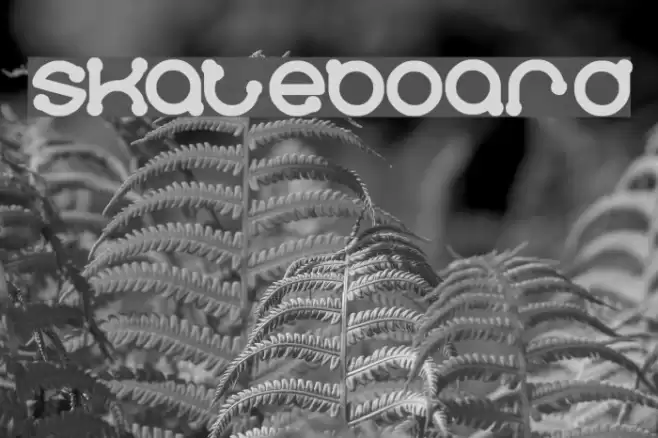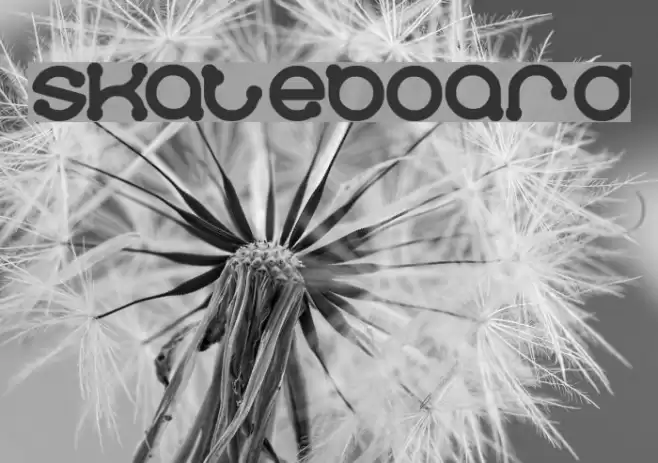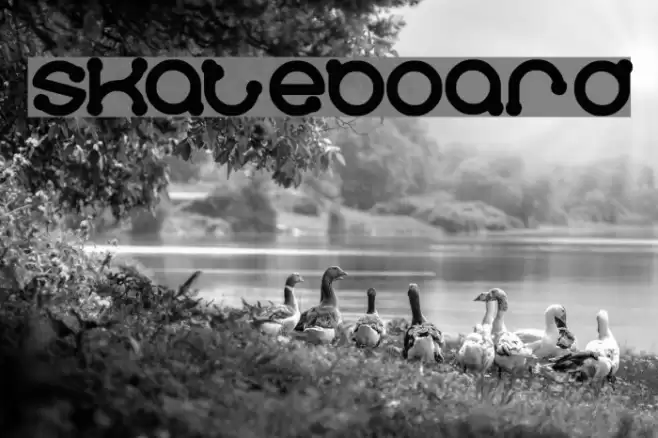
skateboard Font
skateboard Description
This font features a unique and playful design with rounded, bubble-like characters that create a sense of fun and whimsy. The letters are bold and have a consistent thickness throughout, giving them a uniform appearance. The rounded ends and smooth curves contribute to a friendly and approachable aesthetic. This style is reminiscent of retro or vintage designs, making it suitable for projects that aim to capture a nostalgic or playful vibe. The font maintains a consistent baseline and x-height, ensuring readability while still offering a distinct visual appeal.
A playful, bubble-like font with rounded, bold characters from Uncategorized fonts.
- Proposed Projects: Ideal for children's books, playful branding, retro-themed posters, and creative advertising campaigns.
- Overall Style: Playful, Retro